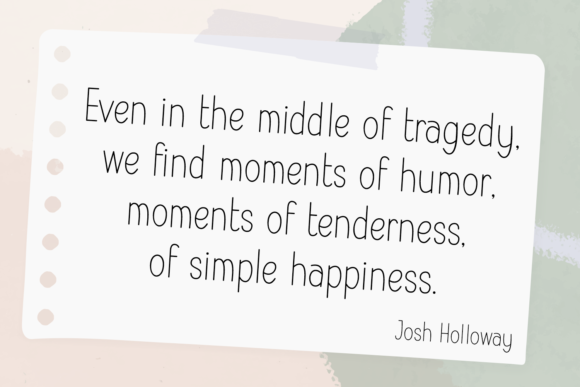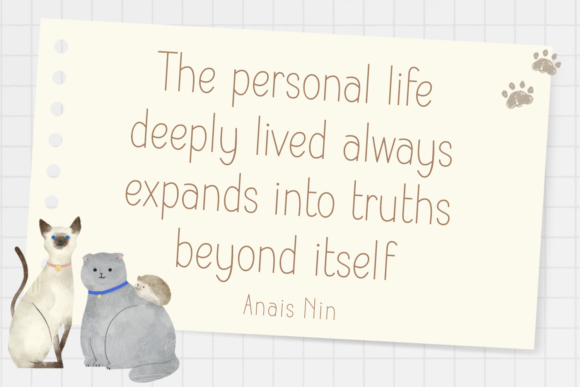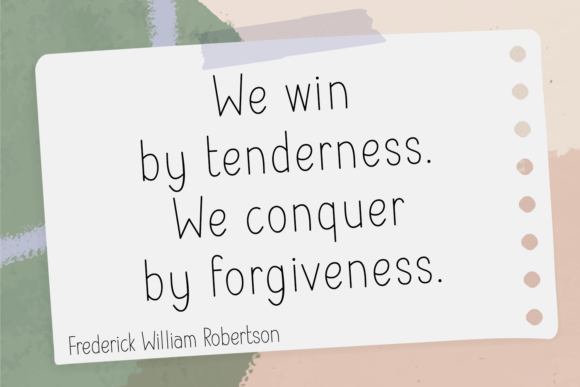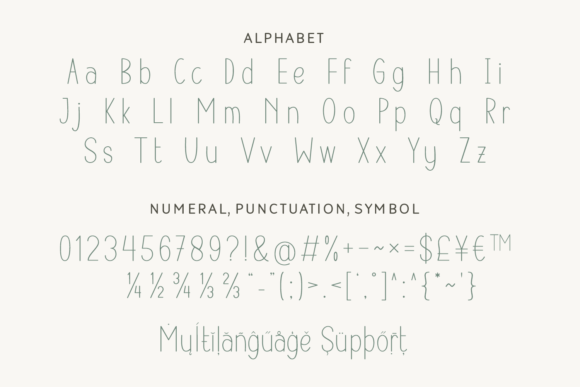
Introduction to Milde Hand Font
Have you ever found yourself staring at a blank sheet of paper, struggling to add that perfect touch to your creative project? You know, the one that makes it truly special and memorable? For many designers, this moment is all too familiar. But what if I told you that there’s a simple solution to elevate your design game? Enter the Milde Hand Font, a beautiful, high-quality, handwritten font that’s perfect for adding a sweet touch to your projects.
As a valuable design resource, the Milde Hand Font offers a unique blend of soft lines and diversity, making it an ideal choice for labels, packing, branding, crafts, and more. With its transparent background, this font is perfect for overlaying on top of images or using as a standalone element. Whether you’re a seasoned designer or just starting out, the Milde Hand Font is a must-have in your design arsenal.
Key Features of Milde Hand Font
- High-quality, hand-drawn design making it a valuable design resource for creative projects.
- Features a unique, elegant style that adds a touch of sophistication to any creative project.
Honest Review: Milde Hand Font
- What works well: ✨ The font has a unique, hand-drawn feel that adds a personal touch to any design. The high quality of the font is evident in its crisp lines and clear typography.
- What works well: ✨ The font comes with a transparent background, making it easy to layer over other design elements.
However, I did encounter some limitations with the Milde Hand Font. ⚠️ The font is not suitable for large-scale text, as it can become difficult to read at certain sizes. Additionally, the font may not be compatible with all operating systems or software.
Milde Hand Font
The Milde Hand Font is a versatile design resource that can be used for various creative projects, such as wedding invitations, birthday cards, and social media graphics. Its high-quality design and transparent background make it perfect for overlaying on images or using as a standalone element.
To get the most out of the Milde Hand Font, experiment with different font sizes, colors, and styles to find the perfect combination for your design. You can also use the font in conjunction with other design elements, such as images and shapes, to create a visually appealing design.
Alternatives to Milde Hand Font
Q: Does the Milde Hand Font have a transparent background?
Yes, the Milde Hand Font has a transparent background, making it perfect for creative projects that require a high level of design flexibility. The transparent background allows you to easily combine the font with other design elements, such as images or graphics, without any visual clutter.